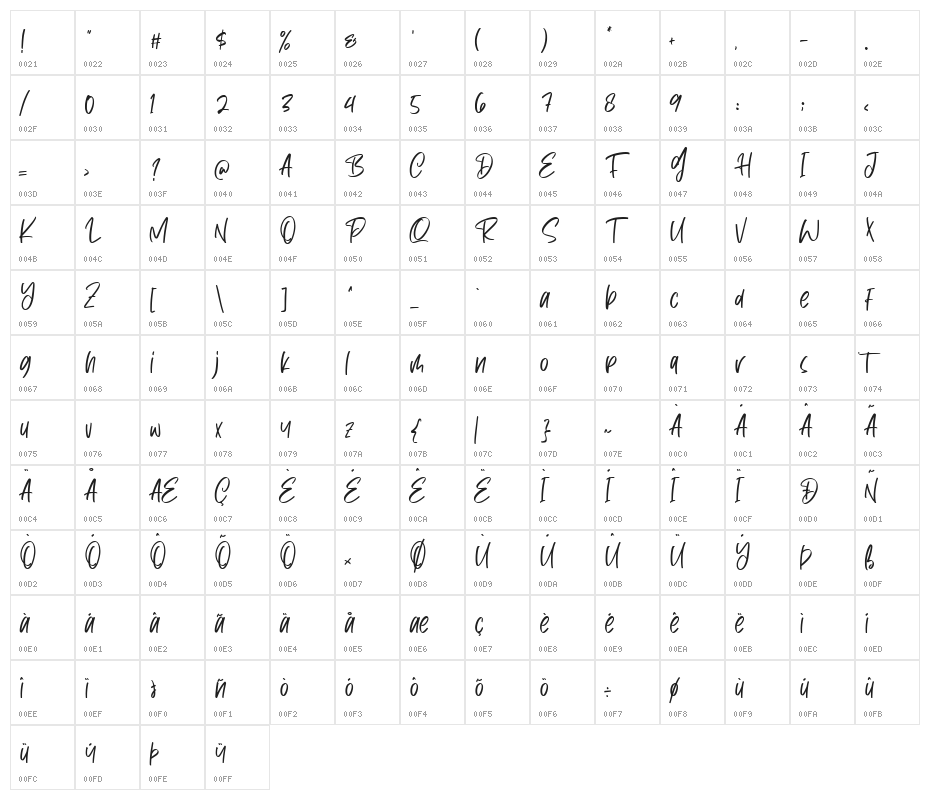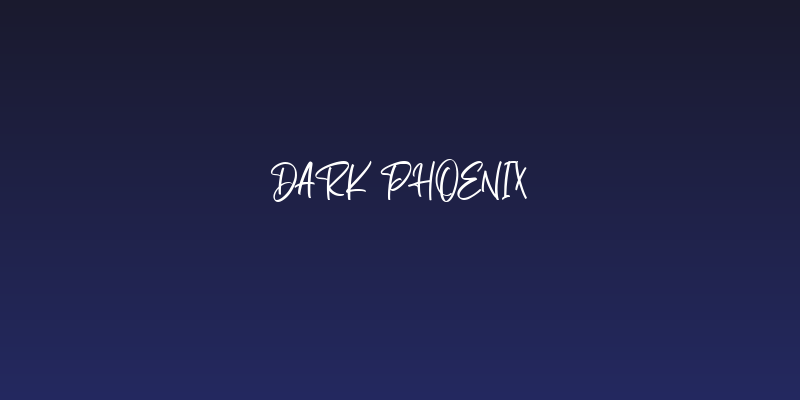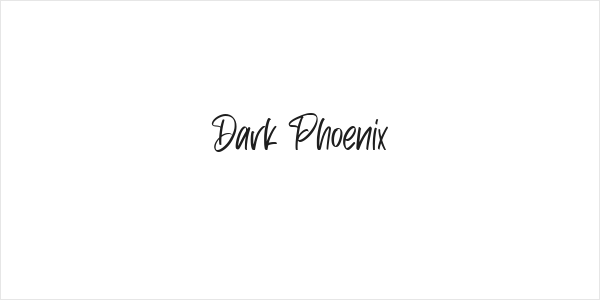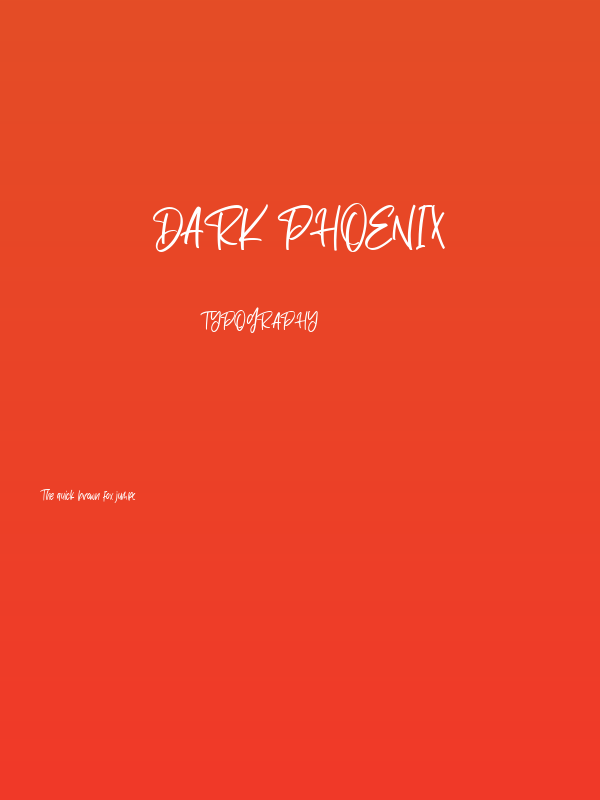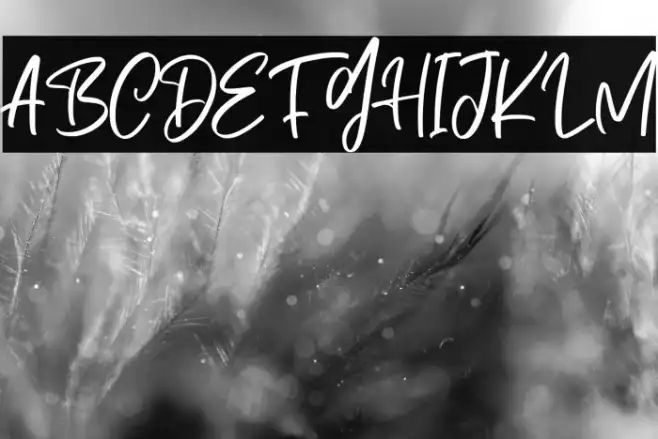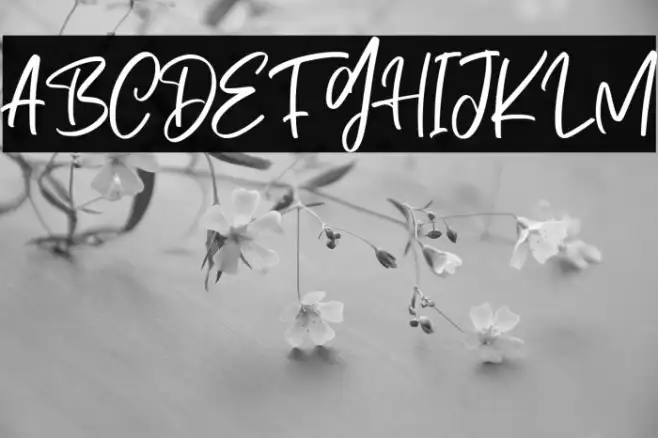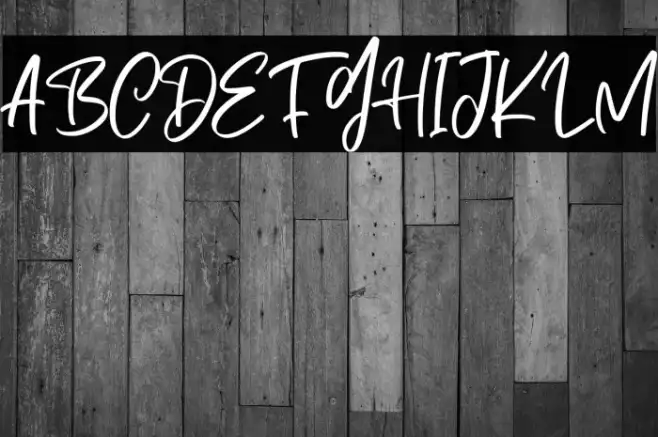
Dark Phoenix Font
Dark Phoenix Description
This font features a dynamic and energetic handwritten style, characterized by its fluid and slightly slanted letterforms. The uppercase letters are bold and expressive, while the lowercase letters maintain a consistent flow, enhancing readability. The numerals are clear and distinct, matching the overall lively aesthetic. Special characters are creatively integrated, adding to the font's versatility. The strokes vary in thickness, providing a medium contrast that adds depth and interest to the text. This font exudes a modern and casual vibe, making it suitable for a variety of creative applications.